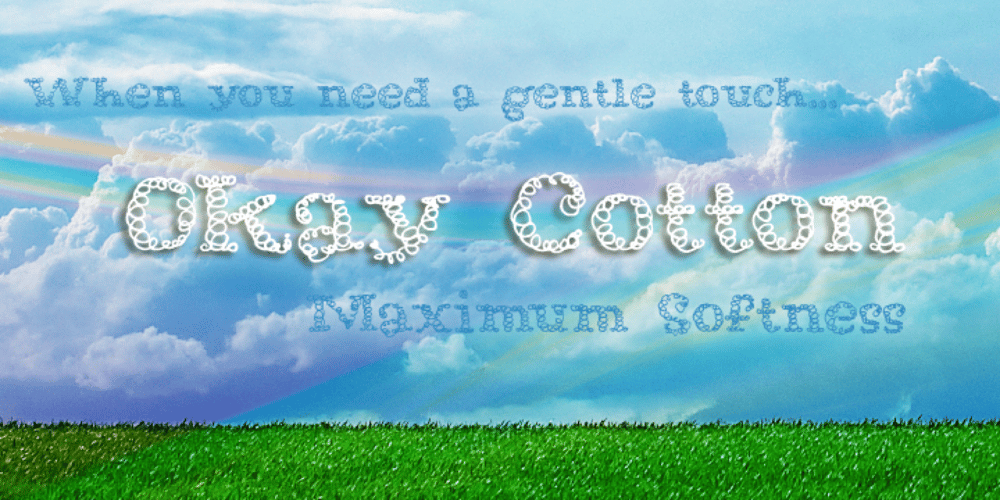
Okay Cotton Font Family was designed by Luke William Turvey and published by Okaycat. Okay Cotton contains 1 styles and family package options. Okay Cotton is soft & gentle — specially made for situations where a pointy hard-edged font just isn’t up to the job. This font is extra-soft but stays true to form — delivering your message with clarity. The small details make Okay Cotton friendly & inviting. Okay Cotton is extended, containing West European diacritics & ligatures, making it suitable for multilingual environments & publications.